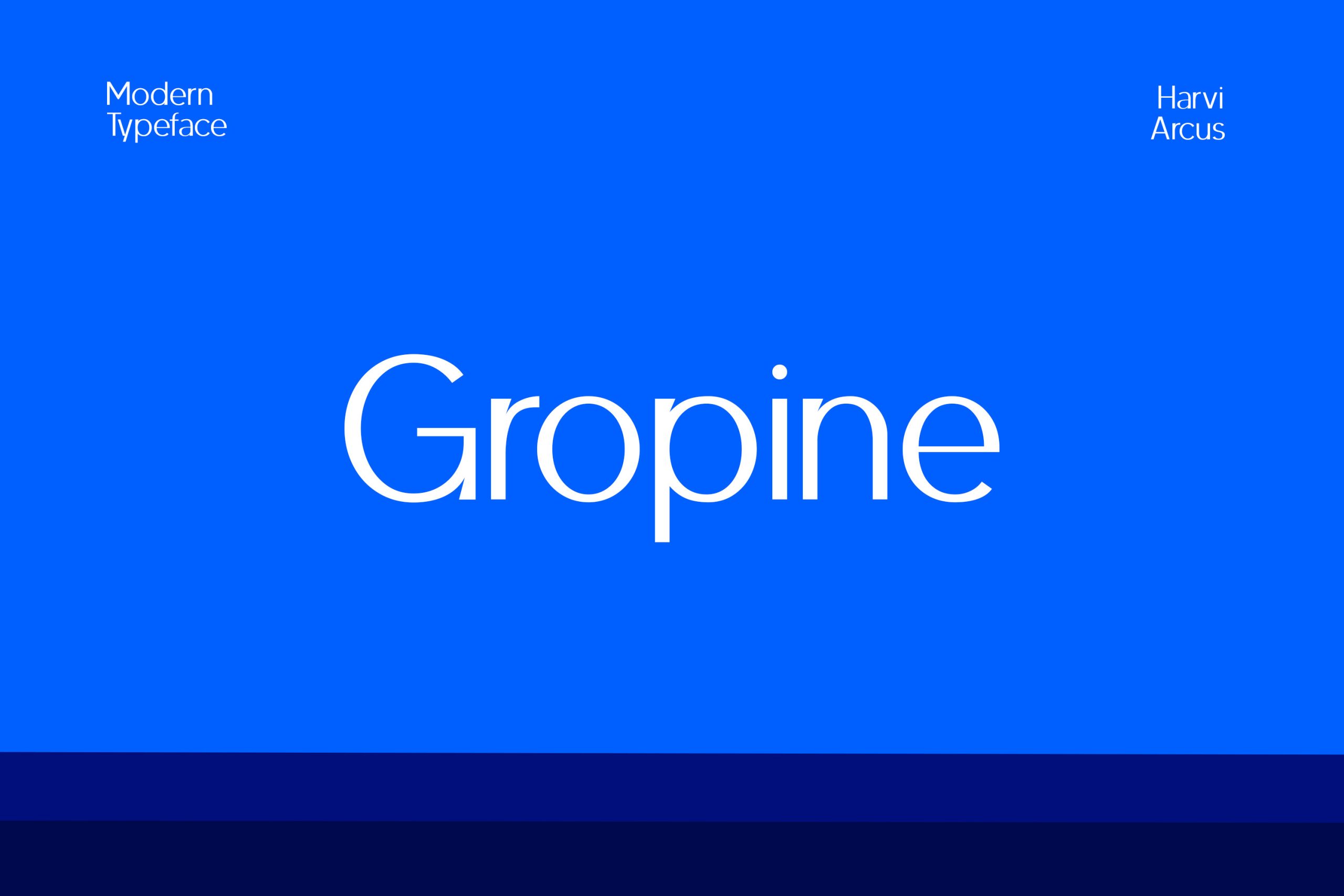
Gropine Font
Gropine is a basic and clean minimal sans serif font. pile into a substantial collection of plans to market it on your creative ideas and view how much it stands!
Gropine Sans Serif Font